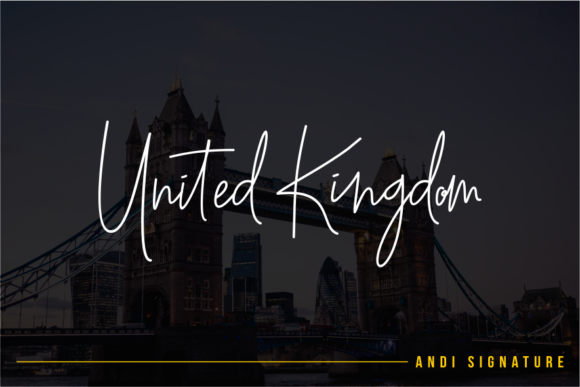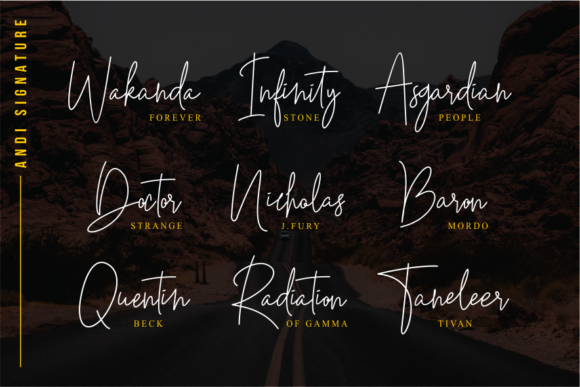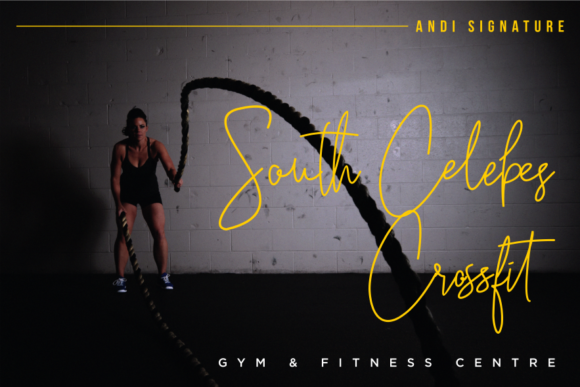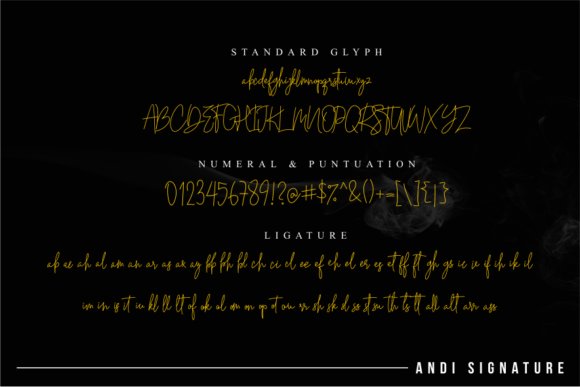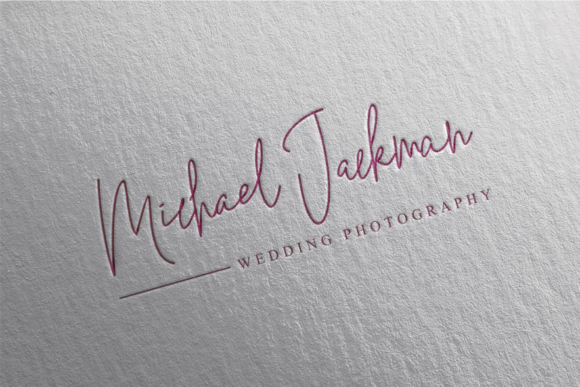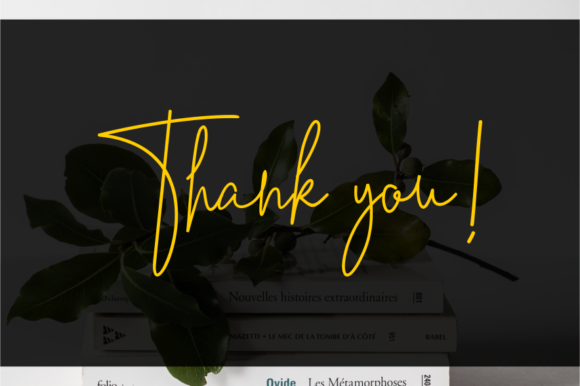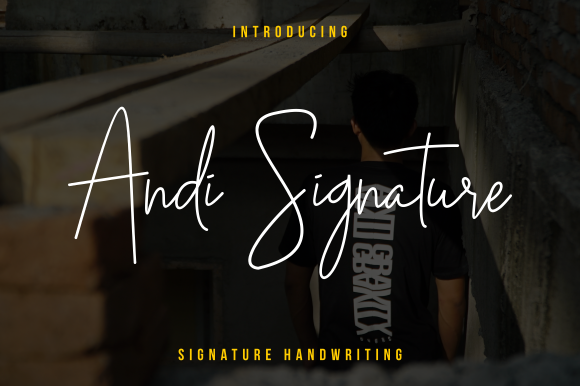
The Quest for the Perfect Font: Discovering Andi
I’ll never forget the design project that led me to discover the amazing Andi Font. I was working on a branding project for a trendy craft brewery, and I was determined to find the perfect handwritten font to capture their playful, artisanal vibe. Hours of scouring font websites and trying out different options had me feeling like I was stuck in a design rut. That was when I stumbled upon Andi, and it was love at first sight! ✨
An Honest Review of Andi Font
So, what makes Andi so special? Let’s dive into the good stuff and a few quirks I’ve noticed.
• ✨ Fresh and casual feel that’s perfect for creative projects
• ✅ Authentic, hand-crafted look with a unique character
• 💃 Highly legible, even at smaller font sizes
• 🎨 Versatile and adaptable to various design styles
• 🤔 Limited language support (for now, it’s mainly focused on English and some European languages)
• ⚠️ Some users might find the font a tad too casual or informal for certain projects
The Story Behind Andi Font
Andi Font was crafted with love by a talented type designer who aimed to create a fresh, casual script that would bring a smile to designers’ faces. Inspired by everyday handwriting and a passion for lettering, Andi was born to add a personal touch to creative projects.
Font Name Andi Font
Author MENK Studio
Q: Is Andi Font suitable for body text?
A: While Andi is highly legible, it’s best suited for headlines, titles, and short paragraphs. For longer body text, you might prefer a more traditional serif or sans-serif font.
Q: Does Andi Font support non-English languages?
A: Currently, Andi Font supports English and some European languages. If you need support for other languages, it’s best to check with the font designer or foundry.